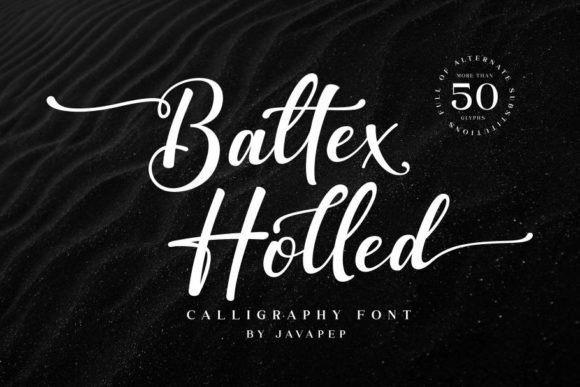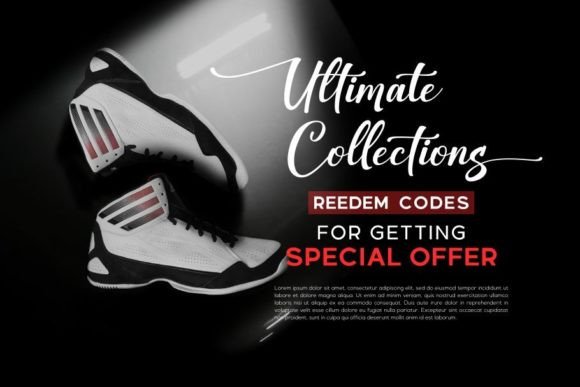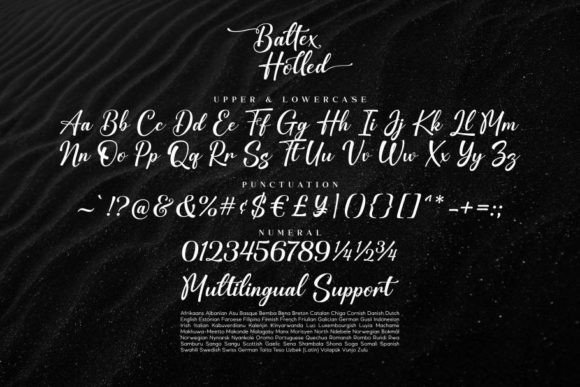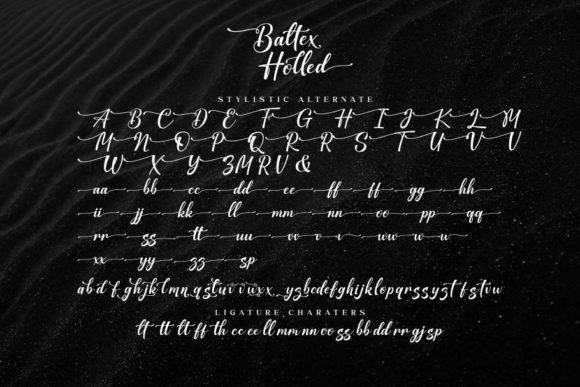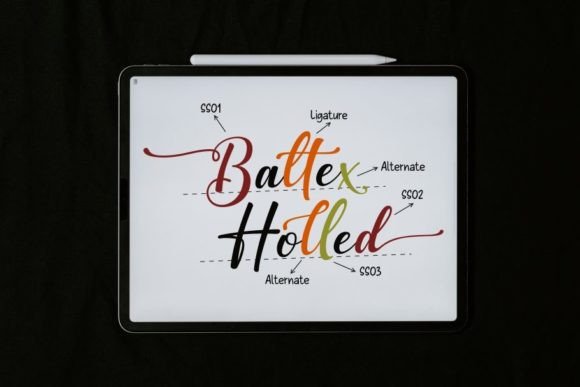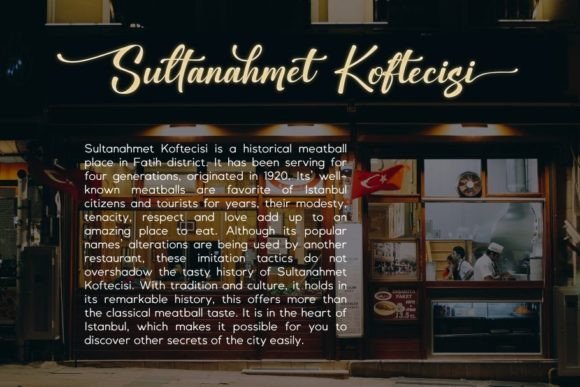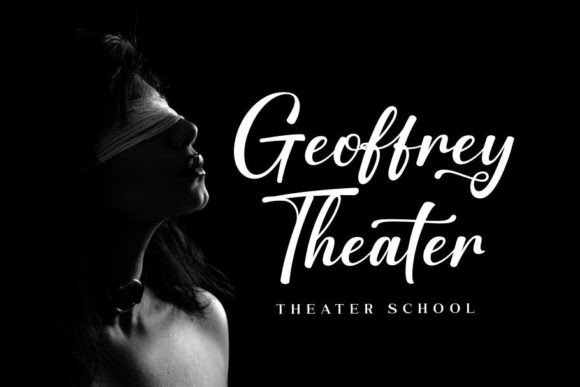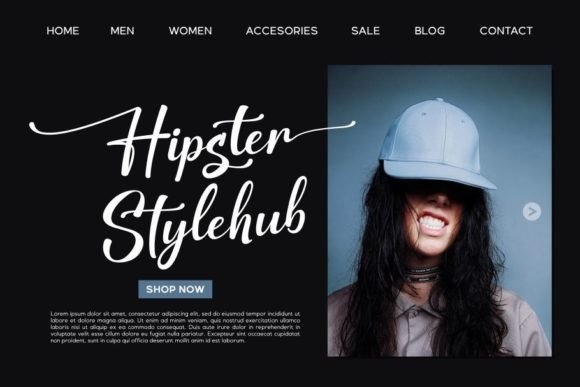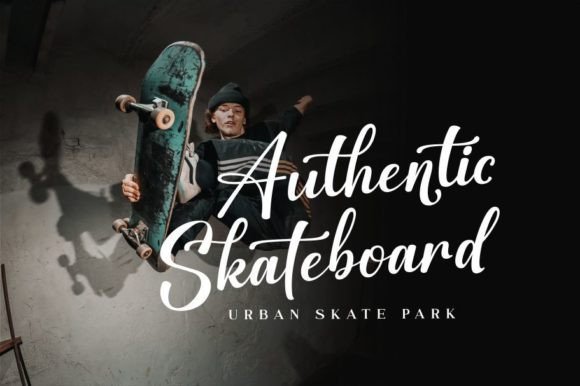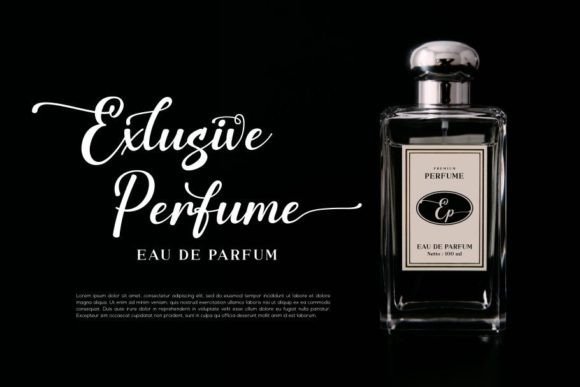
Baltex Holled Font
About Baltex Holled Font
Baltex Holled is an exquisite calligraphy font that showcases a modern and elegant style, adorned with various alternate characters. Tailored for versatility, this font is a perfect choice for a wide range of design applications, including logos, titles, headlines, product packaging, branding identity, advertisements, social media posts, and more. The font’s PUA encoding enhances its usability, providing easy access to all the intricate glyphs and swashes.
The calligraphic beauty of Baltex Holled is evident in its graceful strokes and the variety of alternate characters it offers. This diversity allows you to experiment and create custom lettering that aligns perfectly with your creative vision. Whether you’re designing a logo that demands sophistication or crafting social media posts that require an elegant touch, Baltex Holled rises to the occasion.
The font’s elegance and modern style make it particularly well-suited for titles and headlines, capturing attention with its refined aesthetic. In product packaging and branding identity, Baltex Holled adds a touch of luxury, elevating the perceived value of the product or brand.
The PUA encoding feature makes it convenient for designers to access the extensive collection of glyphs and swashes, empowering them to customize and personalize their designs effortlessly. This flexibility is especially valuable when seeking to create unique and eye-catching visual elements.
In summary, Baltex Holled is more than just a font; it’s a calligraphy masterpiece that enhances the visual appeal of your designs with its modern and elegant style. Whether you’re working on a branding project, crafting social media content, or designing product packaging, let Baltex Holled be the choice that adds a touch of sophistication and uniqueness to your creative endeavors.